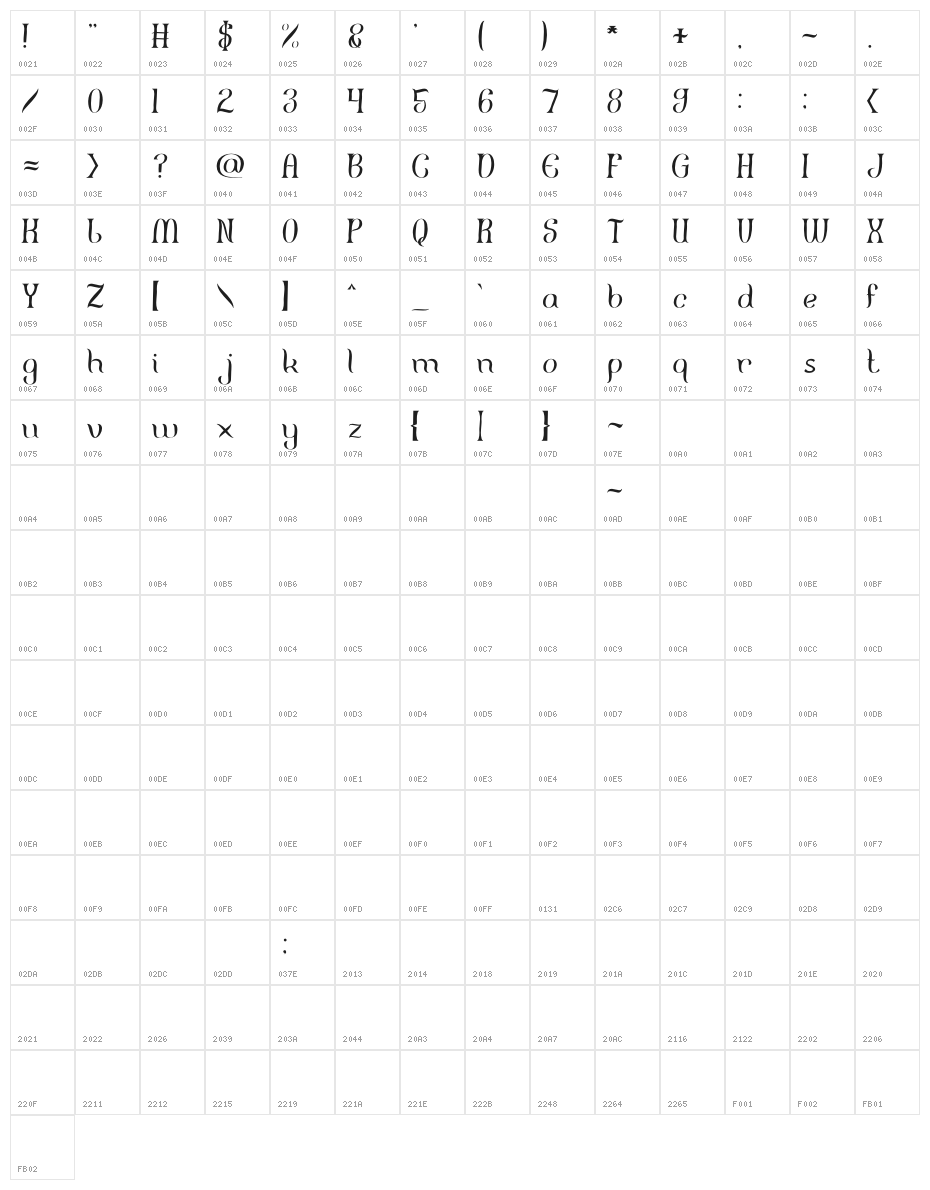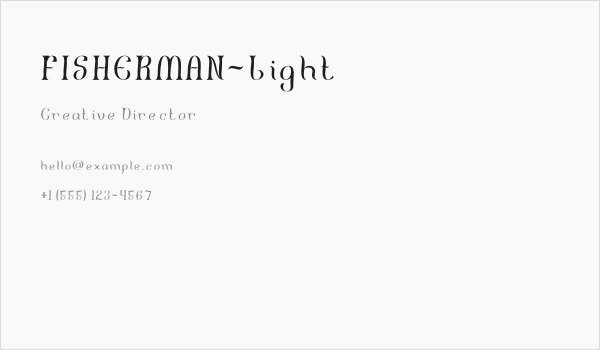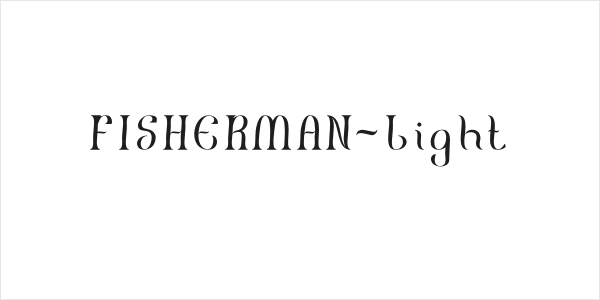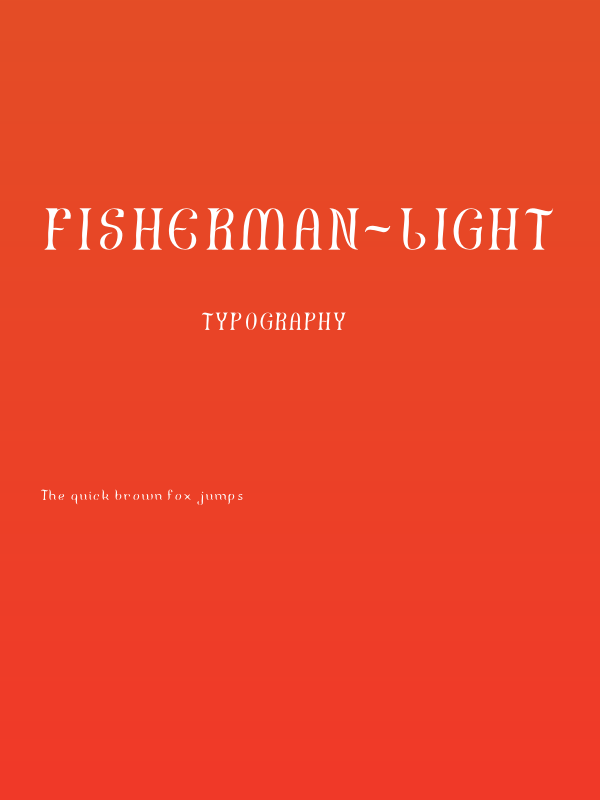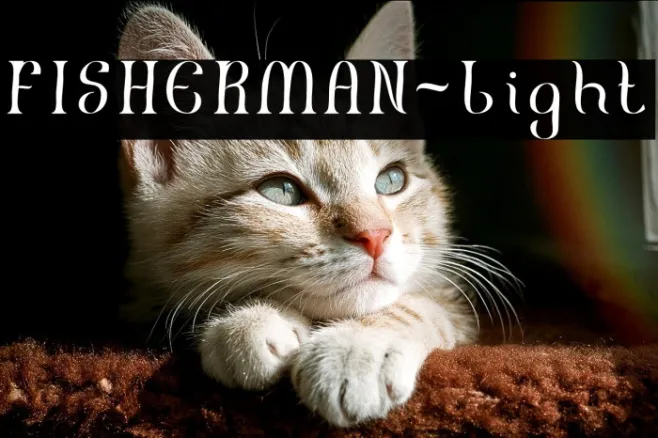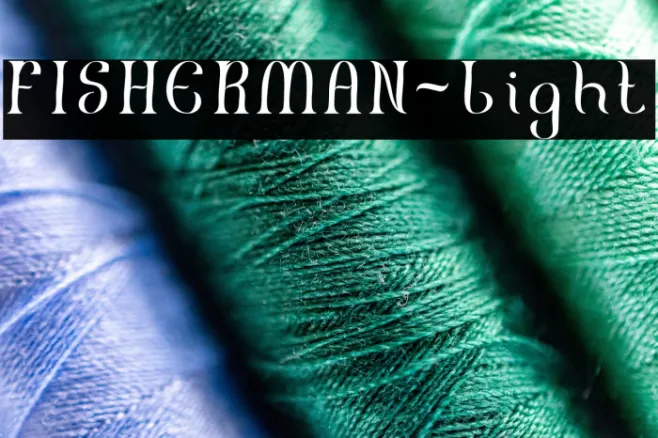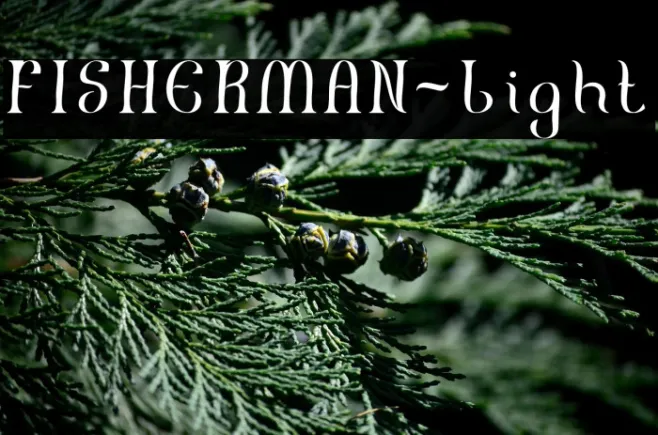
FISHERMAN-Light Font
FISHERMAN-Light Description
This font features a unique blend of elegance and playfulness, characterized by its flowing, slightly whimsical strokes. The uppercase letters are bold and commanding, with a slight curve that adds a touch of softness. The lowercase letters maintain a consistent style, with gentle curves and a slightly condensed form. Numbers are distinct and easy to read, with a slight flair that matches the overall aesthetic. Special characters are well-integrated, maintaining the font's cohesive look. The font's design is both artistic and functional, making it suitable for a variety of creative projects.
FISHERMAN-LIGHT UPPERCASE
FISHERMAN-LIGHT LOWERCASE
FISHERMAN-LIGHT OTHER CHARS